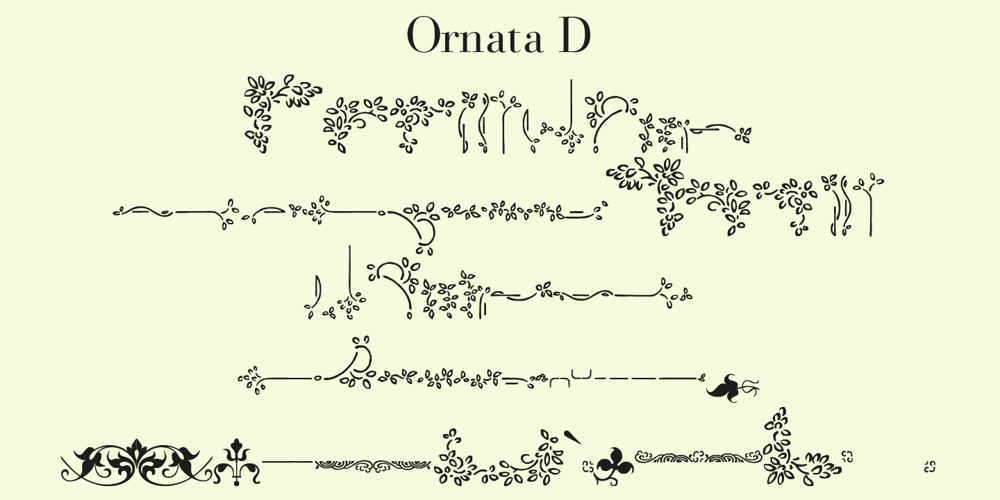
Ornata D Font Family was designed by Gert Wiescher and published by Wiescher Design. Ornata D contains 1 styles and family package options. Ornata D is the fourth of a series of old ornaments that I am trying to save from oblivion. I am completely redesigning the ornaments from scratch, trying in this one to keep the rough “letterpress” character. These ornaments have been first designed by Auriol around 1910. This set is perfect to design a great number of frames. Your digitizing type-designing savior, Gert Wiescher